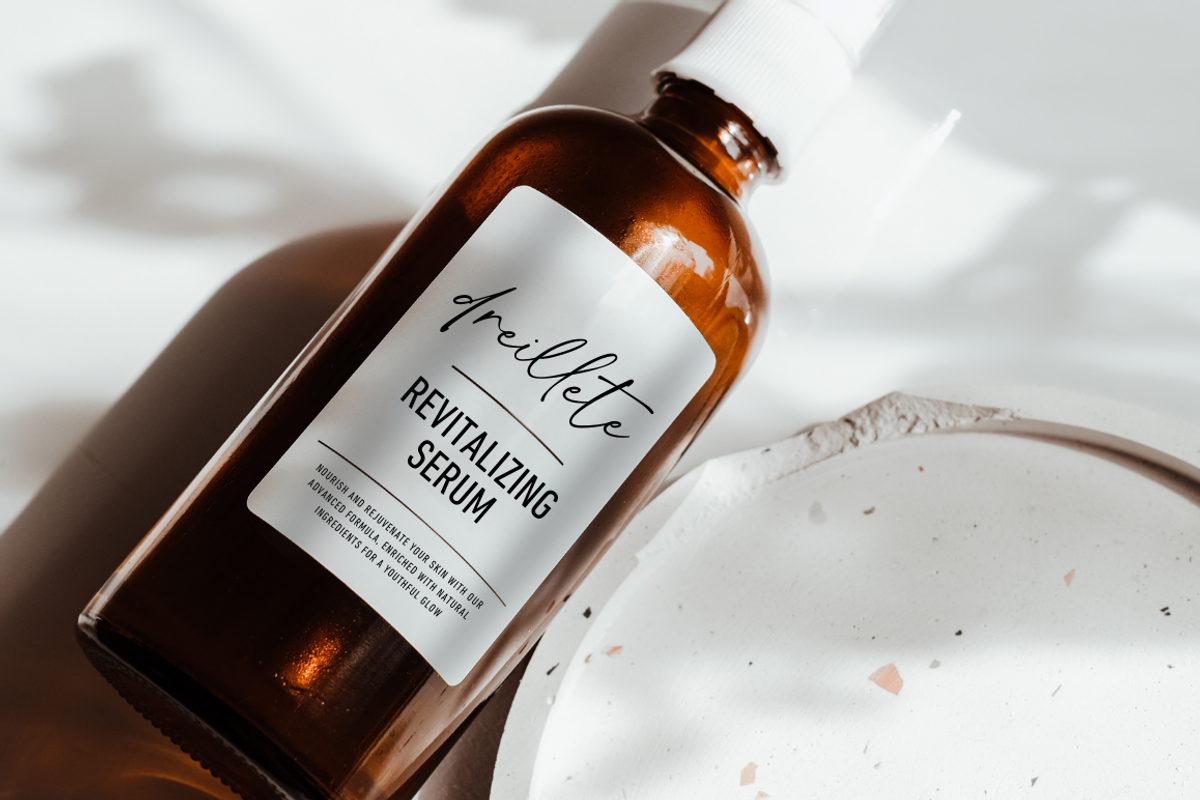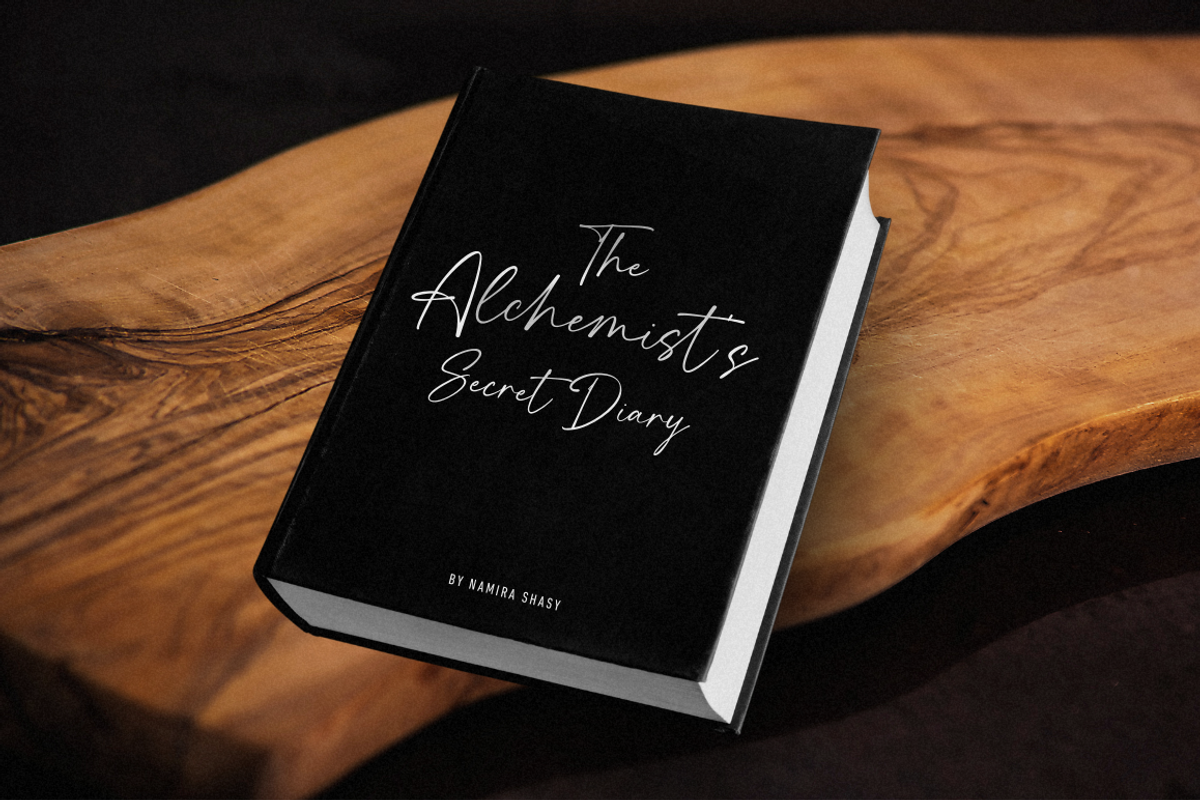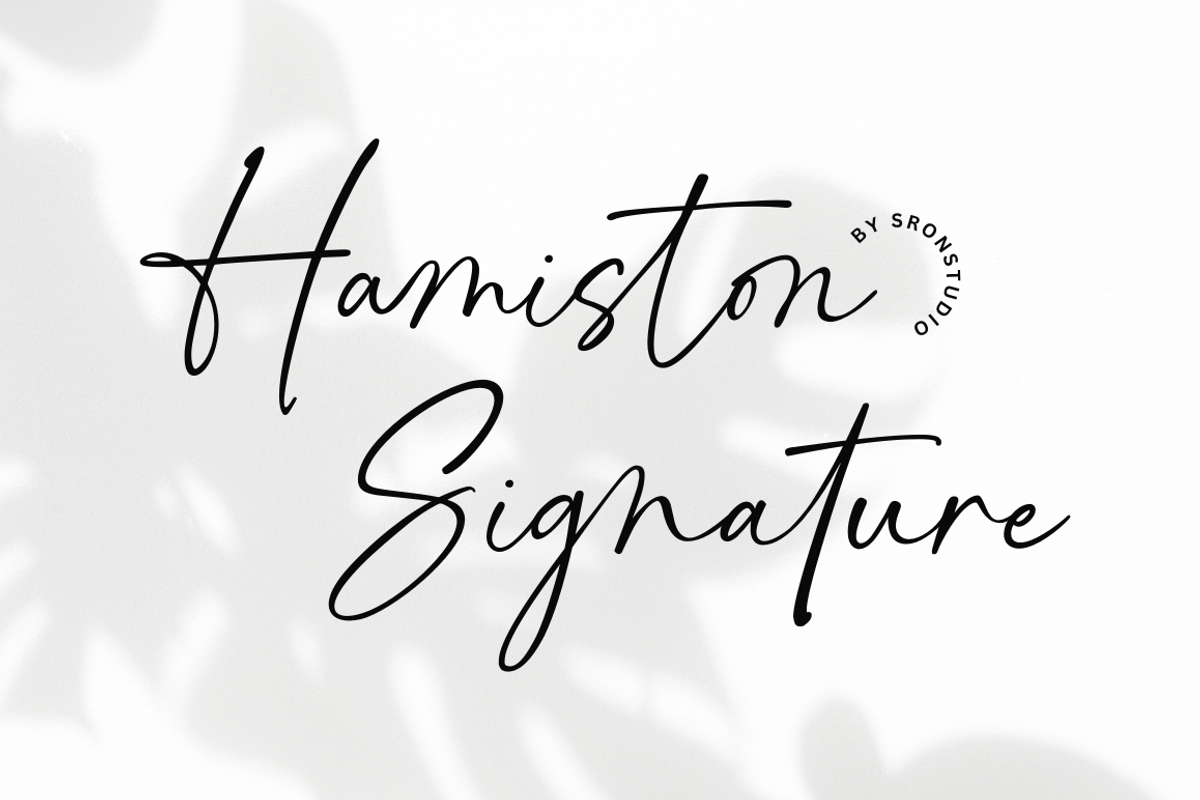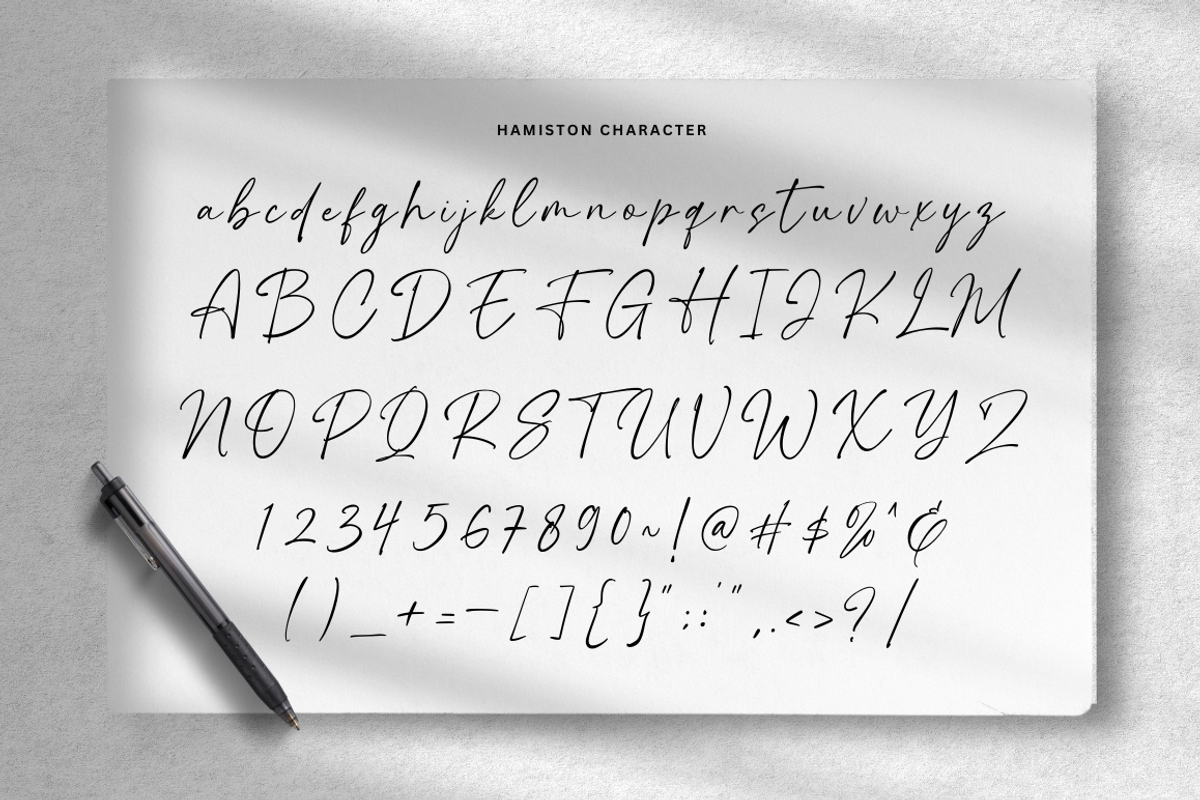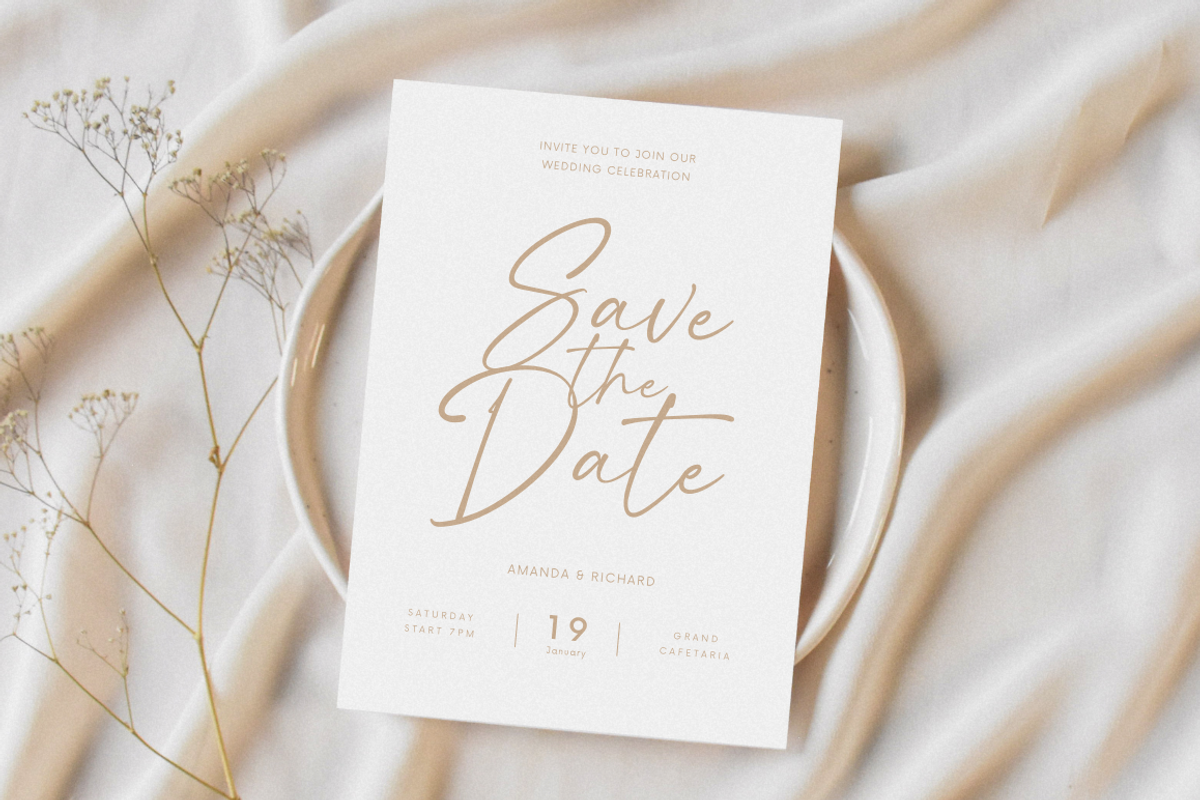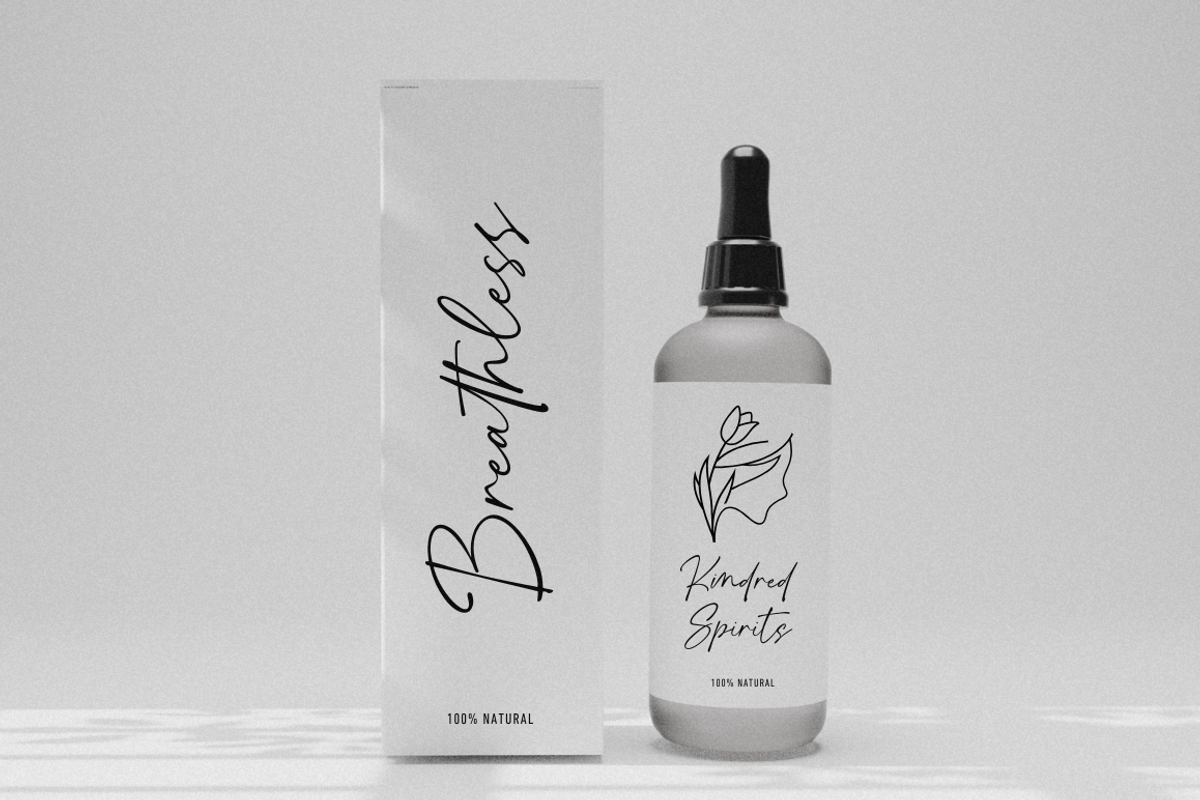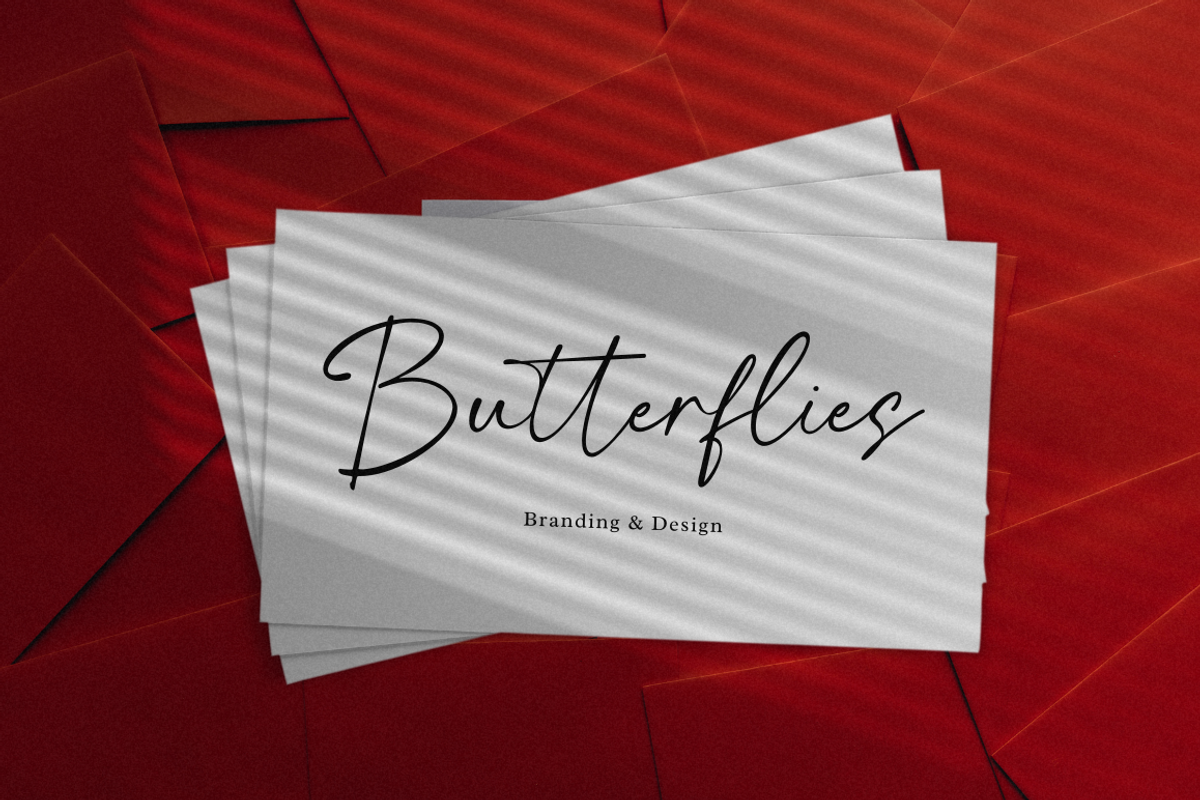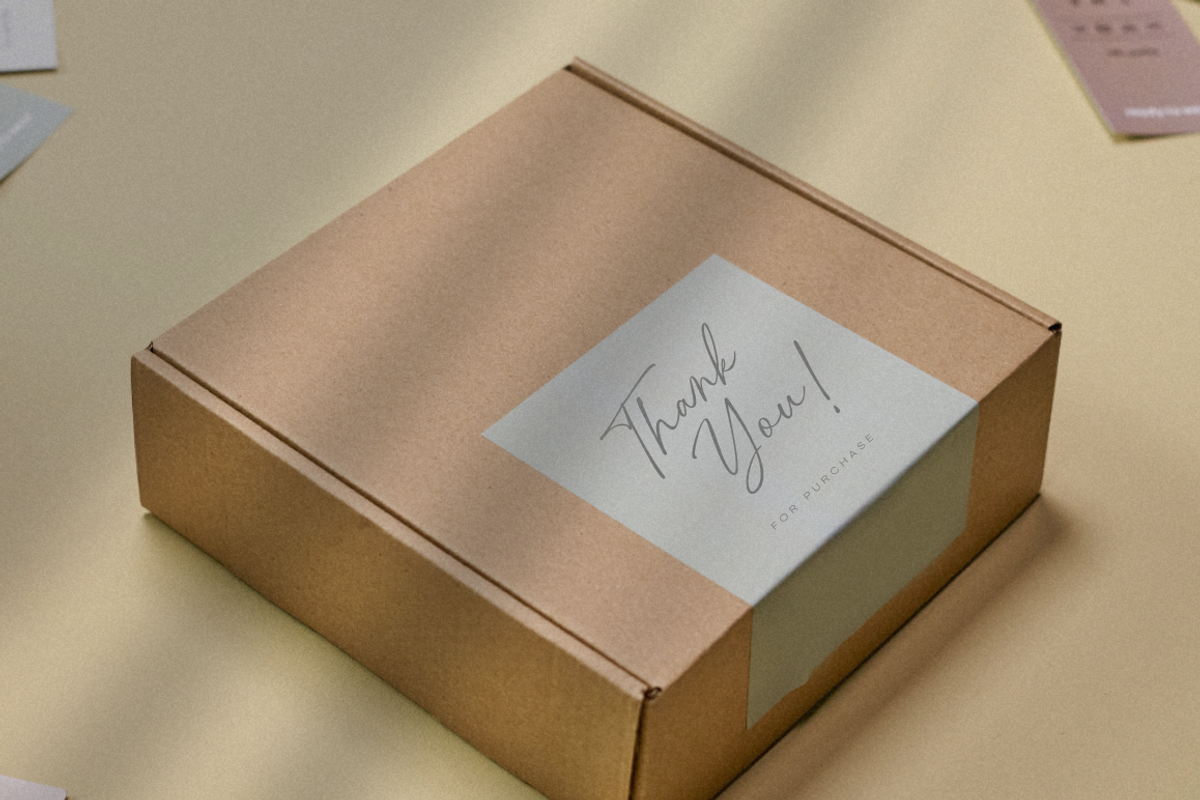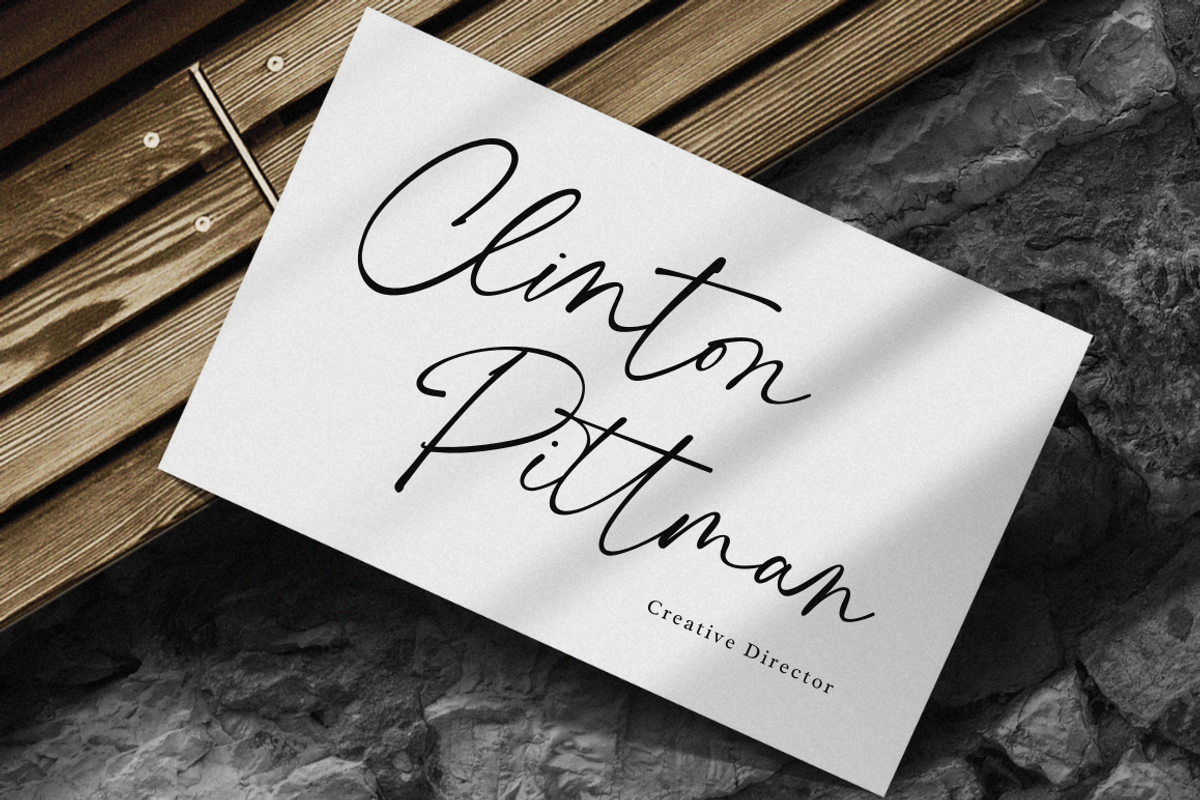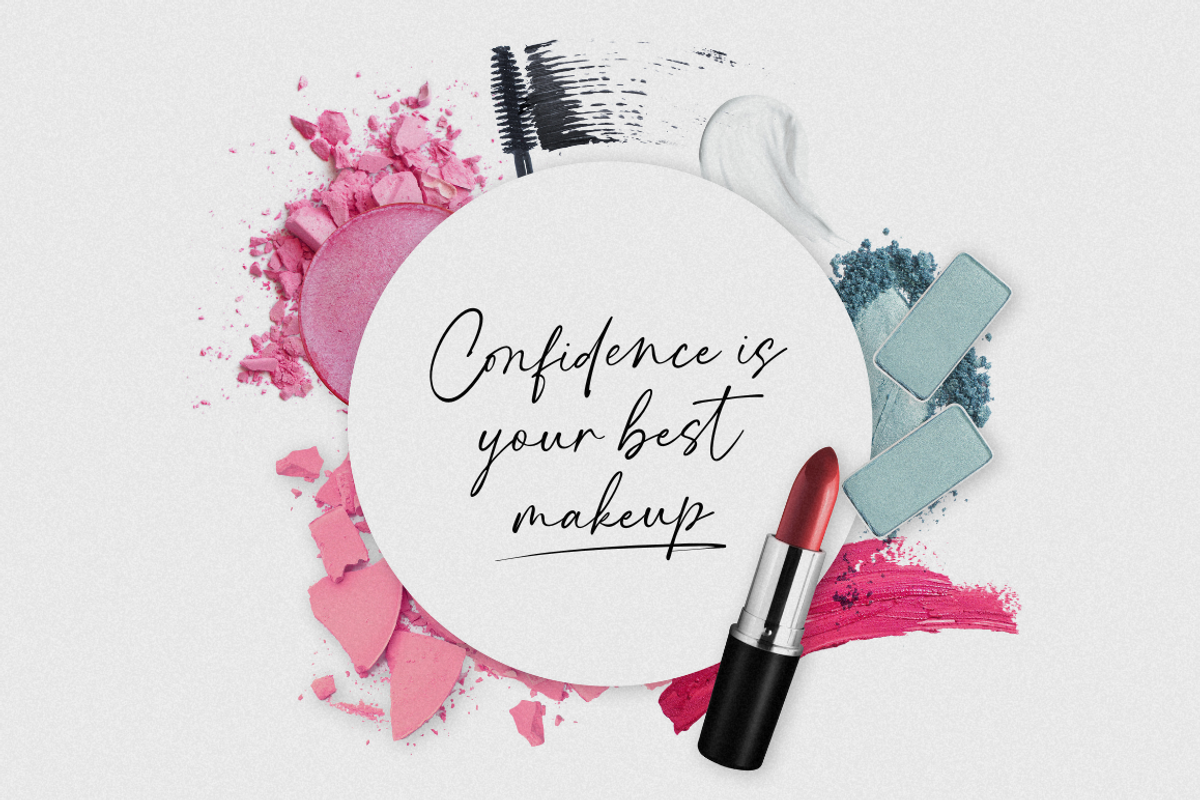
Hamiston - Signature Font
"Hamiston Signature" is a sophisticated script signature font that exudes elegance and class. With its smooth, flowing lines and beautifully crafted letterforms, this font captures the essence of handwritten sophistication. Perfect for personal branding, wedding invitations, luxury logos, and high-end packaging, "Hamiston Signature" brings a touch of refinement and personal charm to every project. Its natural, authentic feel makes it an excellent choice for conveying a sense of uniqueness and style.